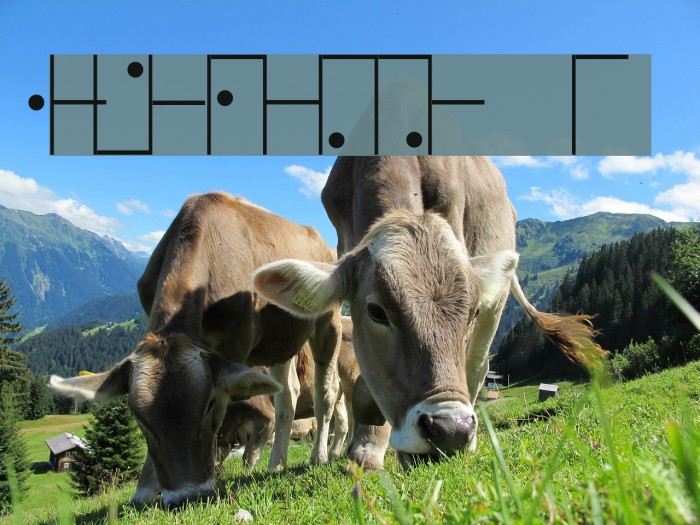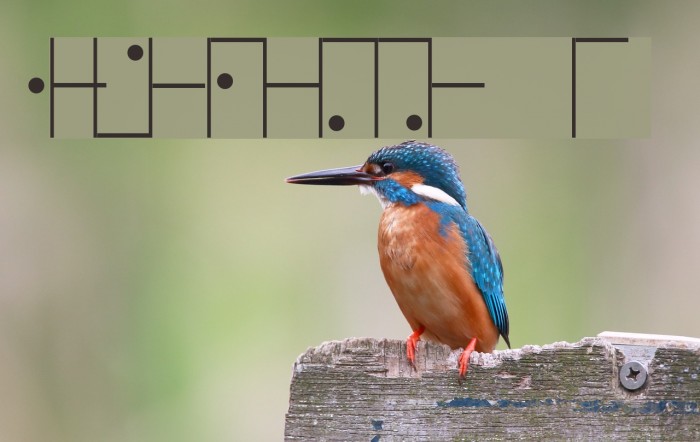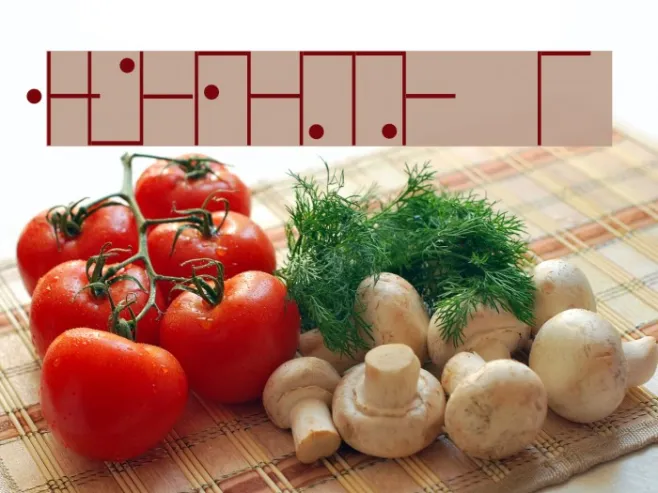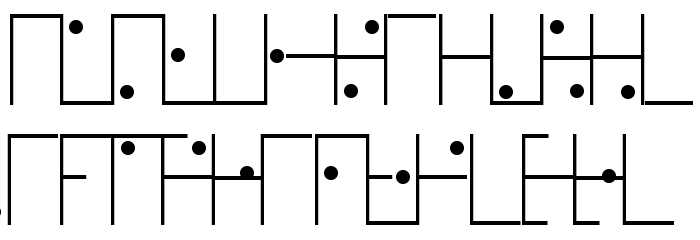
Vertical A Font
This font features a unique and modern design with vertical and horizontal lines intersected by small circular dots, creating a futuristic and abstract appearance. The characters are composed of straight lines and geometric shapes, giving it a distinct and unconventional look. The numerals and special characters maintain this geometric style, ensuring consistency throughout the typeface. The overall design is clean and minimalist, making it suitable for creative and artistic projects that require a bold statement.
A modern, geometric font with intersecting lines and dots for a futuristic look.
• Proposed Projects: Ideal for digital art, modern branding, tech-related projects, and innovative product packaging.
• Category: Decorative/Display
• Overall Style: Modern
• Use Case: Logos, Headlines, Posters